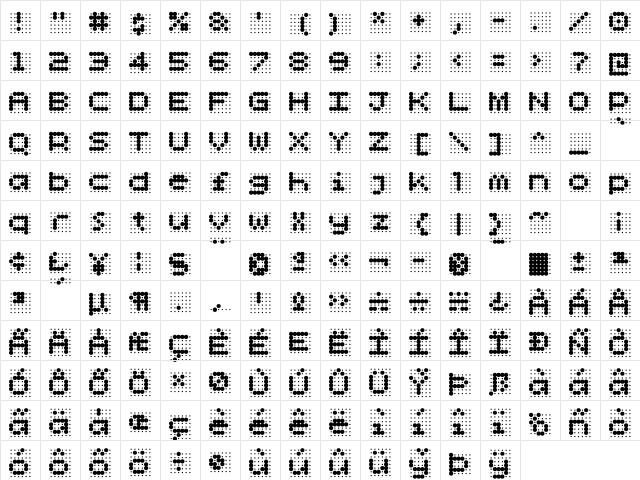
Skannerz Bold Regular Font Preview
Skannerz Bold Regular
Design Context for Skannerz Bold Typeface
Skannerz Bold is a composed and adaptable typeface that performs quietly and consistently across a wide range of design contexts. Its bold stroke weight gives it real presence on the page.